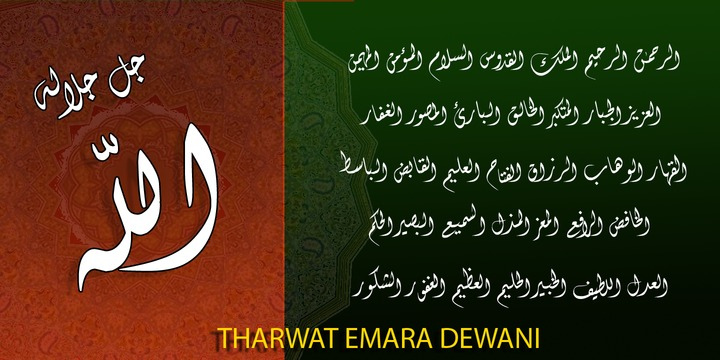
DEWANI Font
DEWANI Font is perfect for various design applications including Islamic cultural center branding, Arabic language publications, Middle Eastern restaurant signage, Persian cultural event materials, Islamic art gallery exhibitions, Arabic calligraphy workshop displays, Middle Eastern heritage celebrations, Islamic wedding invitations, traditional mosque communications, and authentic Middle Eastern lifestyle brands. This elegant typeface excels in projects requiring Arabic authenticity and Islamic cultural sophistication that captures the spiritual beauty and artistic heritage of Islamic calligraphy and Middle Eastern traditions.
What makes DEWANI Font so exciting is its graceful embodiment of Islamic calligraphic tradition and Arabic cultural elegance through letterforms that suggest the flowing beauty of traditional Arabic script and the spiritual sophistication of Islamic artistic heritage. The font features flowing construction that mirrors traditional Arabic calligraphy, elegant proportions that communicate cultural refinement and spiritual dignity, and distinctive character details that evoke hand-written Islamic texts and the artistic mastery of traditional Arabic scribes. Its distinctive cultural character and spiritual appeal make it perfect for Islamic brands seeking to communicate authenticity, tradition, and the timeless elegance of Arabic culture and Islamic artistic traditions.
DEWANI Font family includes elegant weights and cultural variations that enhance its versatility for different Islamic applications. Each style maintains the font's signature cultural character while providing options for various Middle Eastern design approaches. The family also features Islamic decorative elements, Arabic flourishes, and cultural ornaments that can be combined with the letterforms to create cohesive Middle Eastern heritage design systems.
Whether you're developing Islamic cultural brands, Arabic heritage projects, or Middle Eastern communications, DEWANI Font Free Download provides authentic typography that honors the rich traditions of Islamic culture and celebrates the artistic beauty of Arabic calligraphy and Middle Eastern heritage. This typeface transforms ordinary communications into cultural expressions that promise authentic Islamic experiences and Middle Eastern sophistication. The font's cultural appeal makes it particularly effective for Islamic organizations, Middle Eastern restaurants, and cultural institutions targeting audiences who appreciate Arabic culture and Islamic artistic traditions.
DEWANI Font stands out by delivering genuine Islamic cultural authenticity that feels respectfully connected to real Arabic traditions rather than superficial Middle Eastern styling. Its carefully crafted cultural proportions and traditional details ensure that designs feel authentically connected to Islamic heritage and Arabic artistic traditions. From Islamic cultural center branding to Arabic heritage materials, this font provides designers with tools to create communications that celebrate Islamic culture and inspire appreciation for Arabic heritage through elegant, culturally-inspired typography that honors the spiritual beauty of Islamic artistic traditions.